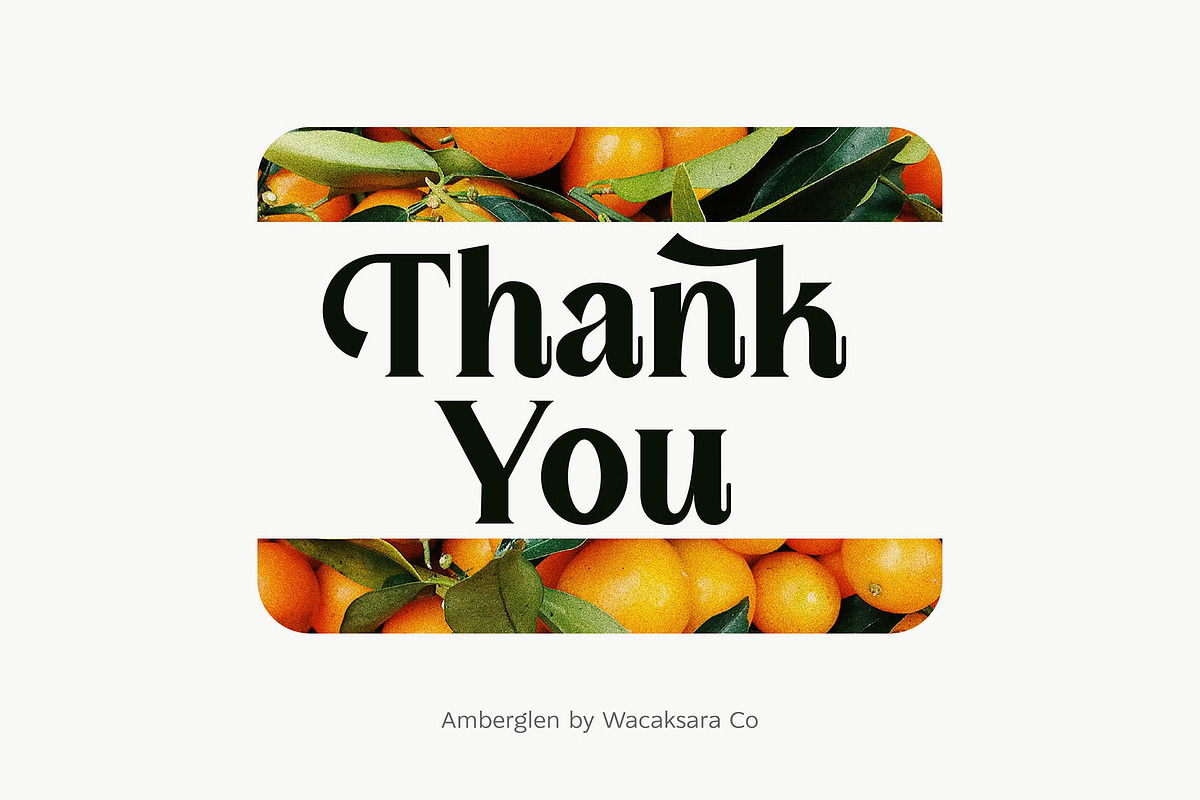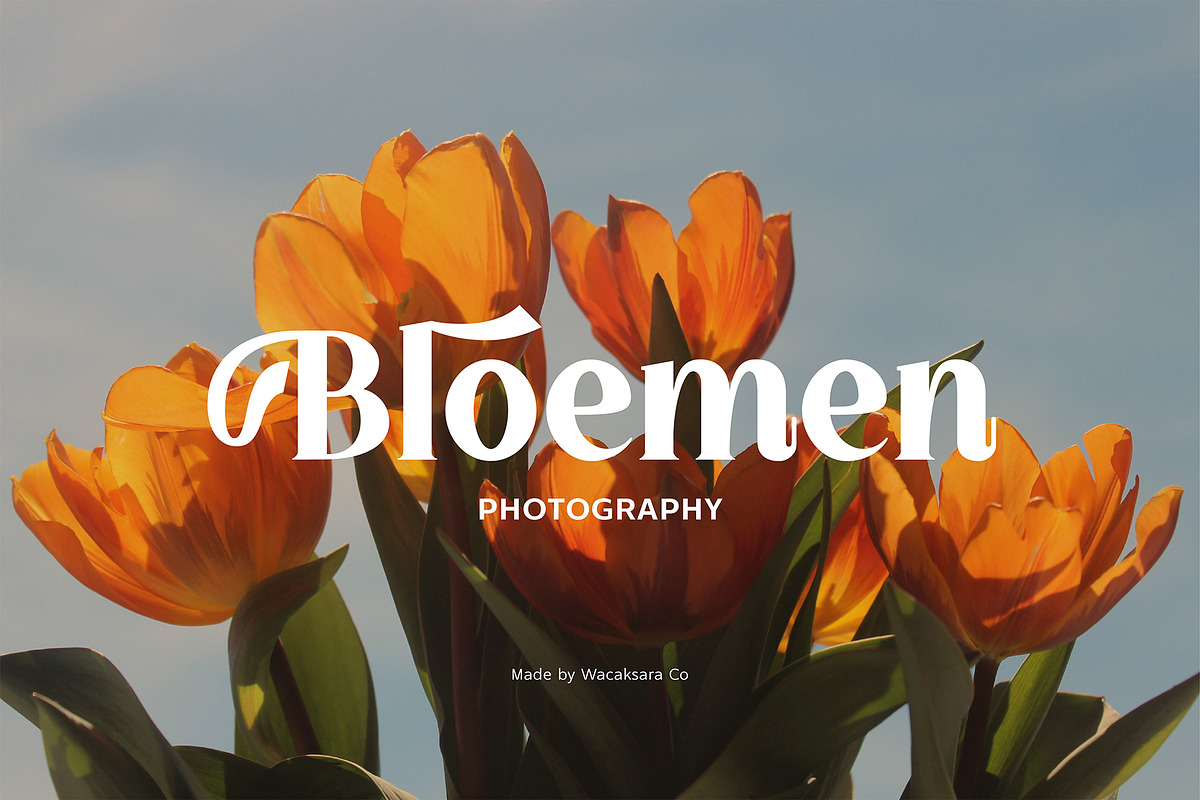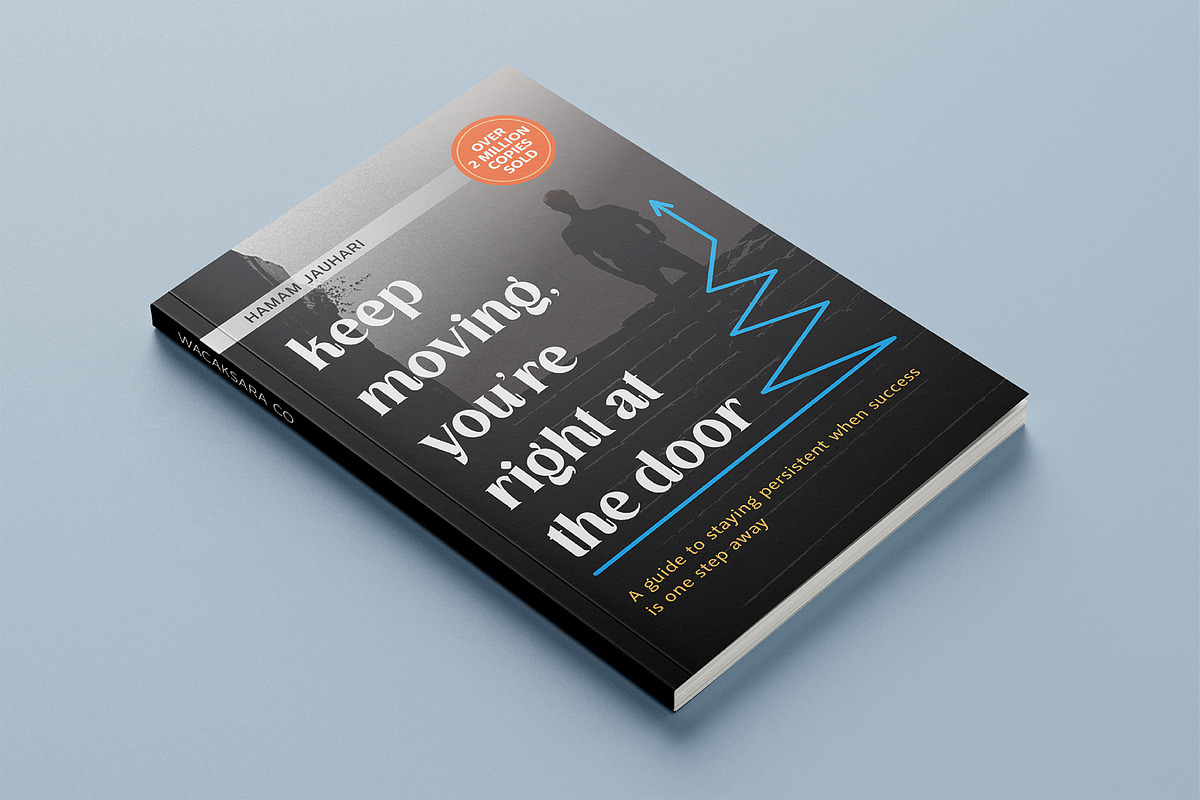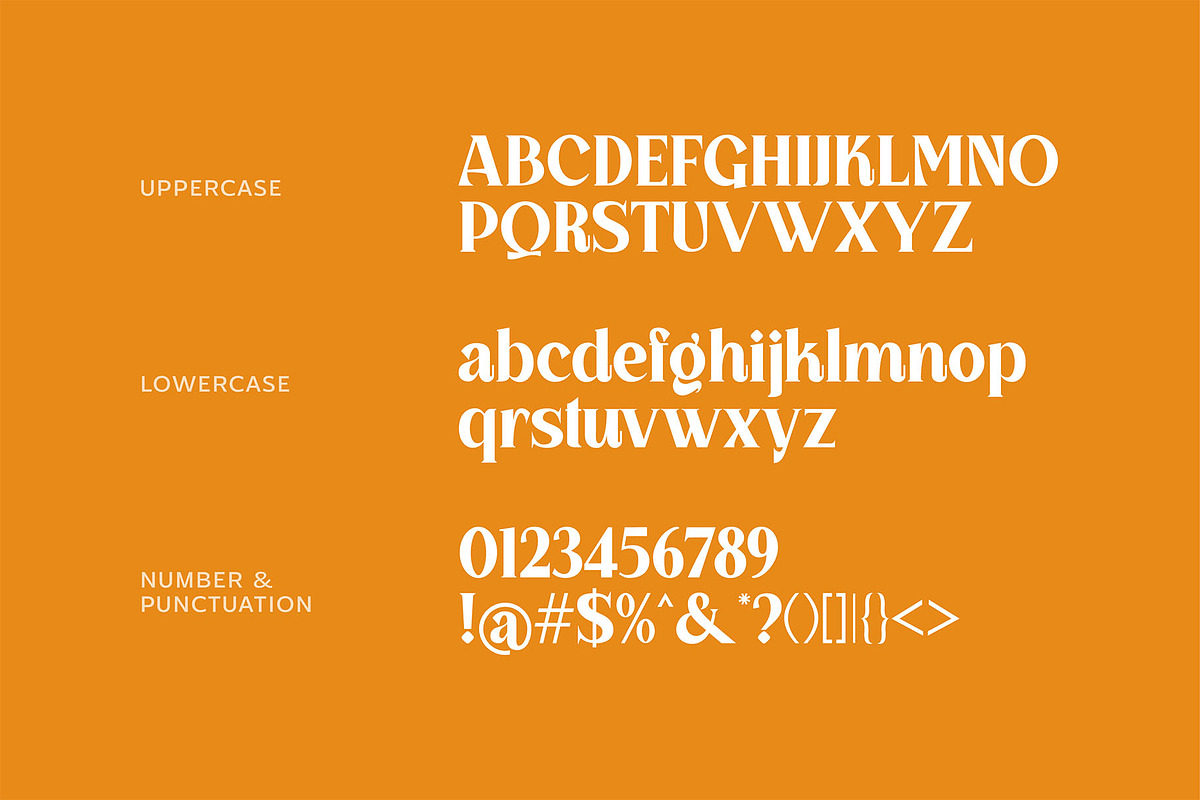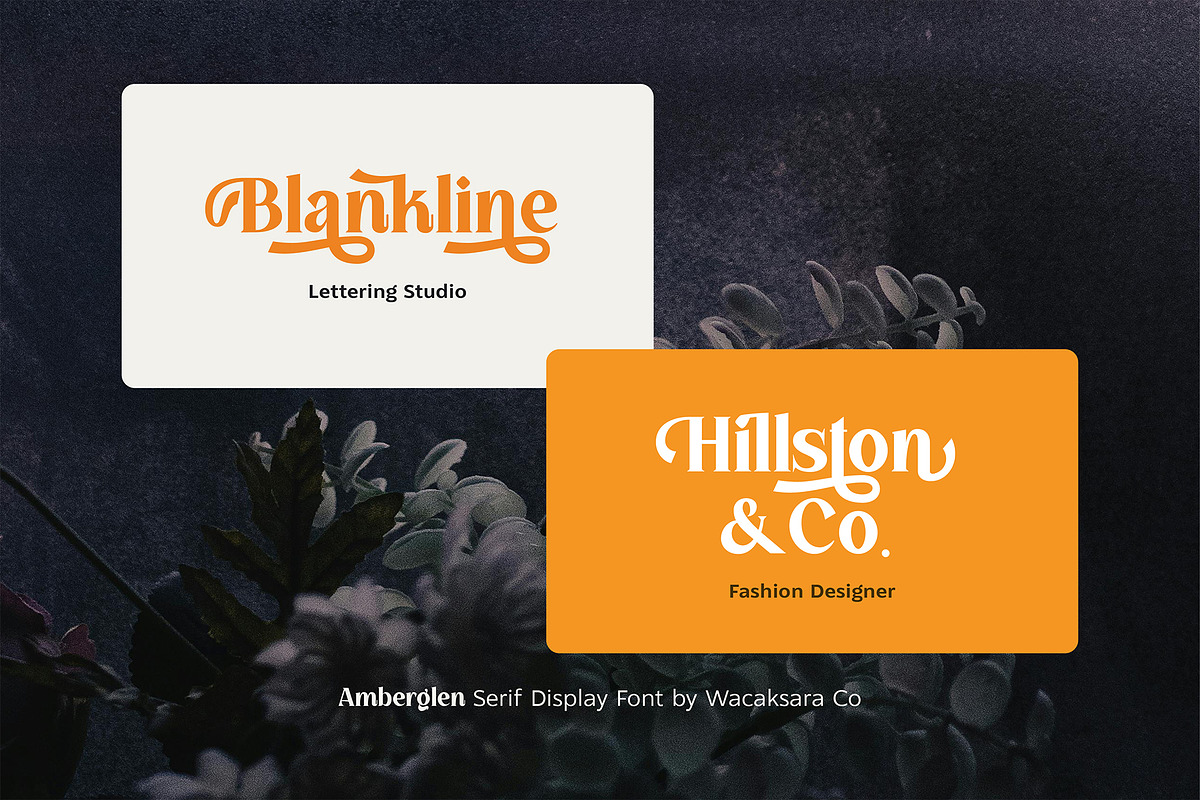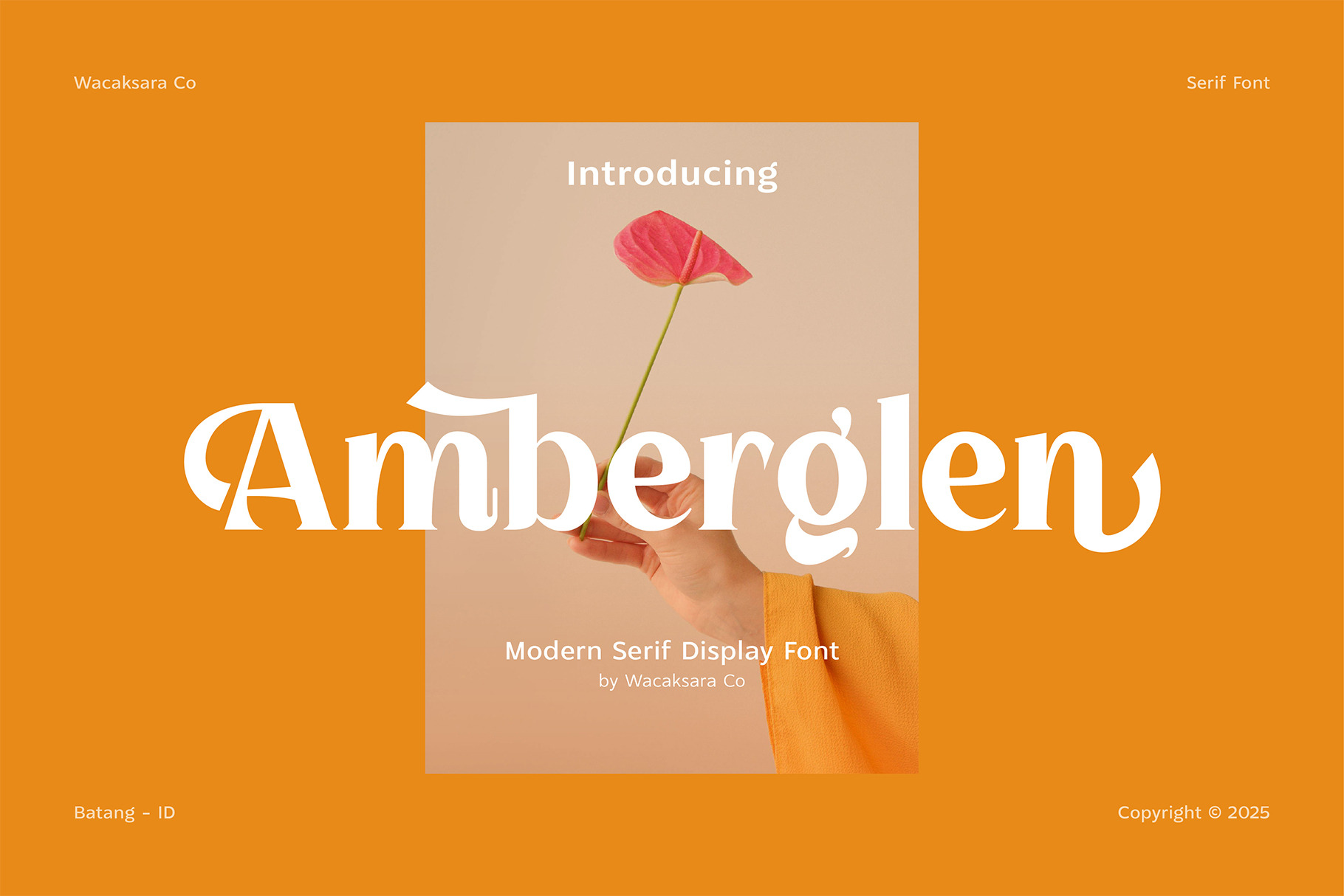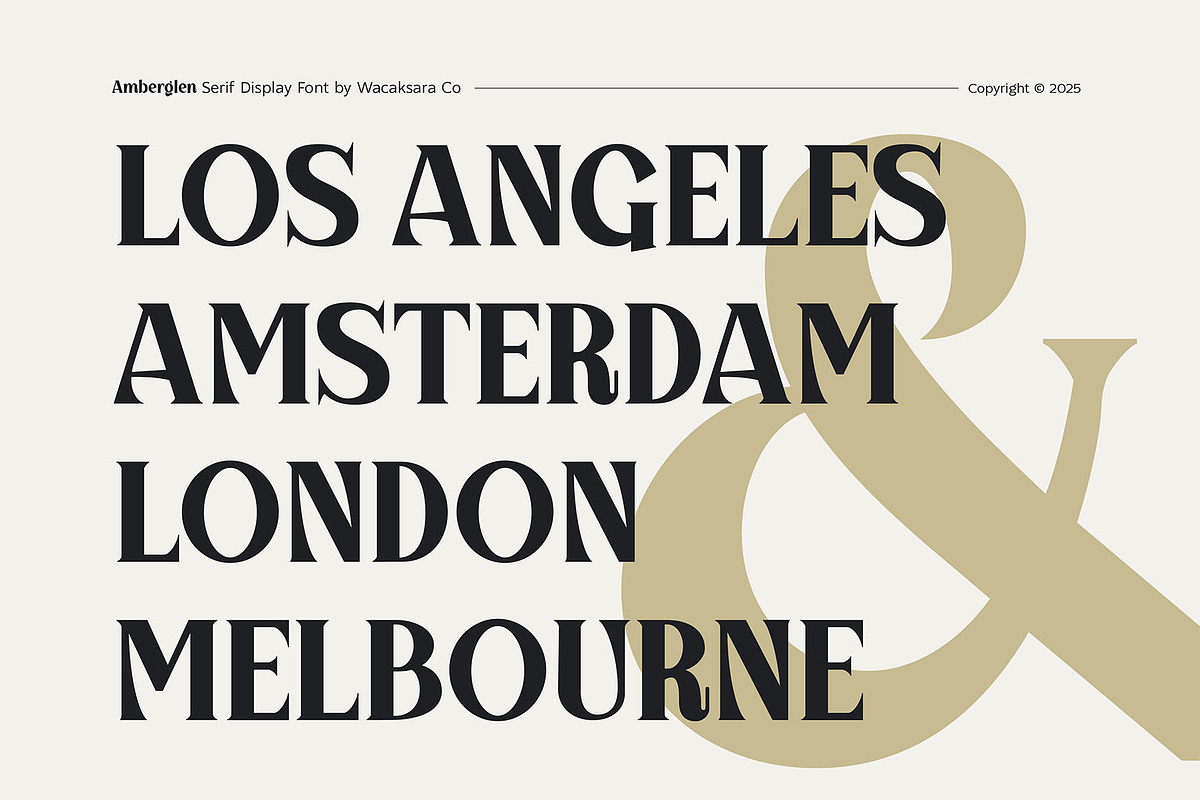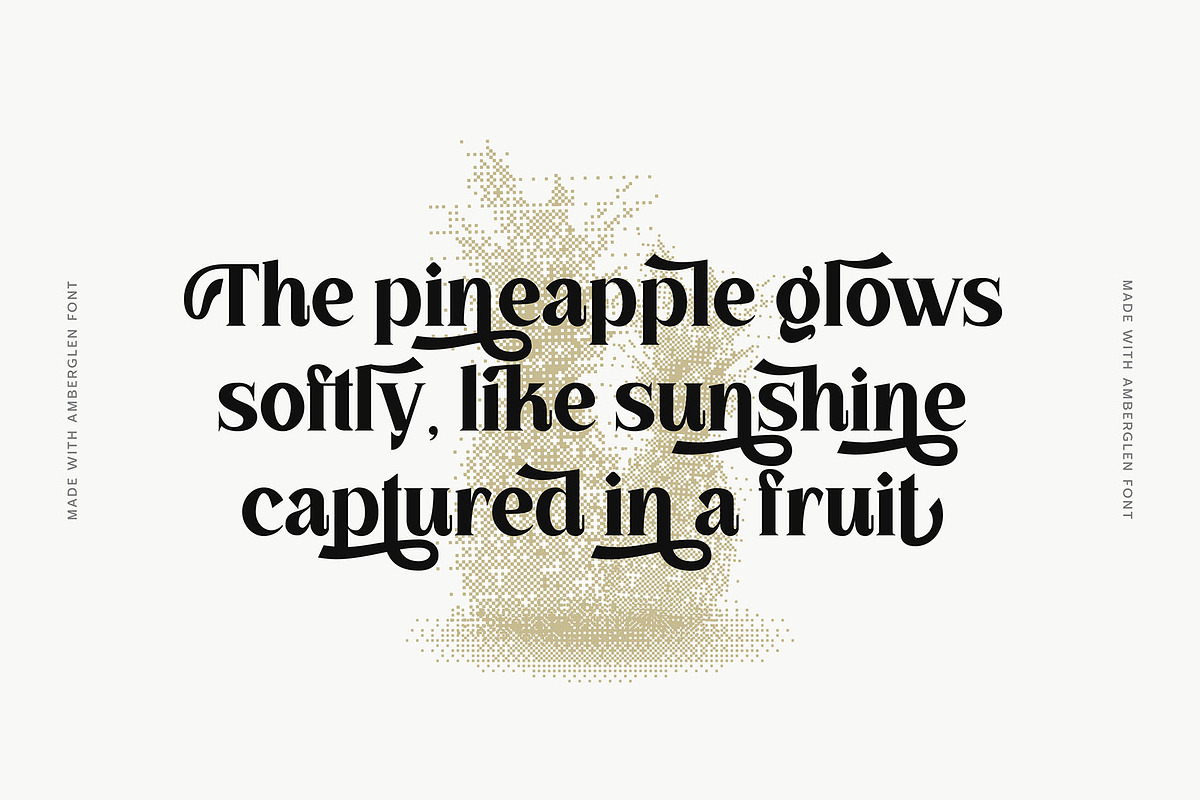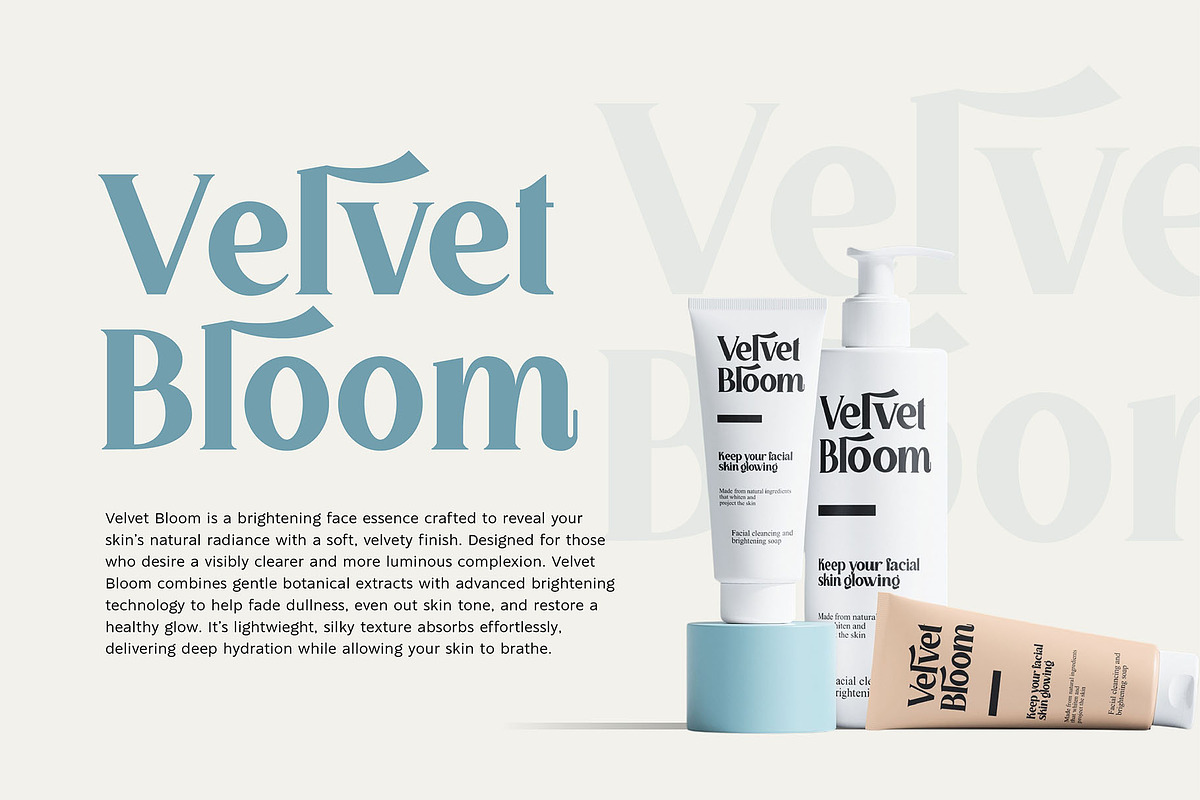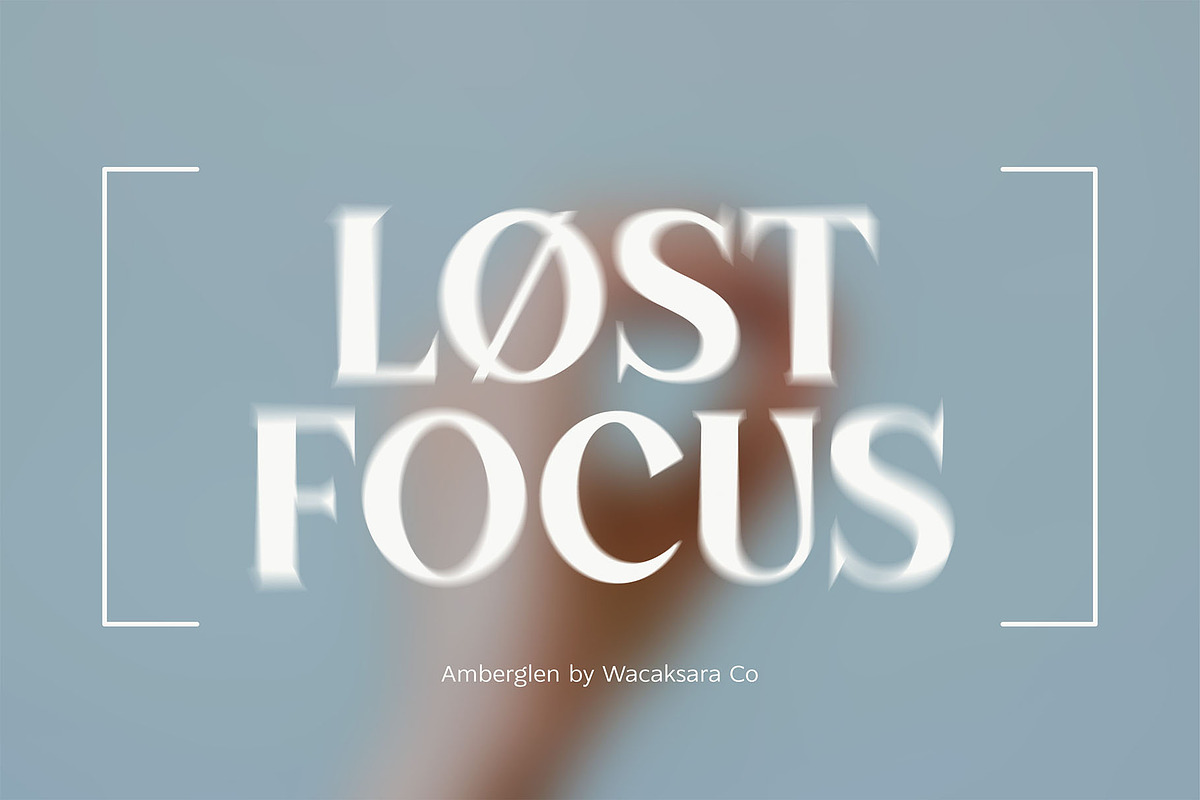
Amberglen - Modern Serif Font
Amberglen is a classy and feminine modern serif display font with elegant curves and a soft touch. Designed to bring warmth and sophistication to your work, this typeface shines in branding, packaging, beauty products, editorials, wedding invitations, and sosial media.
With its refined contrast and stylish letterforms, Amberglen delivers a polished, high - end look that feels modern yet subtly nostalgic. Perfect for designers who need a versatile serif font that elevates any layout with effortless charm.